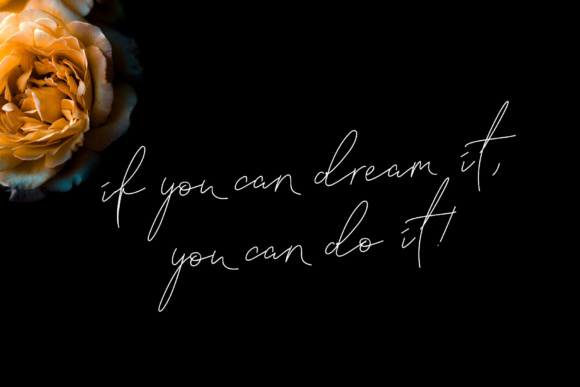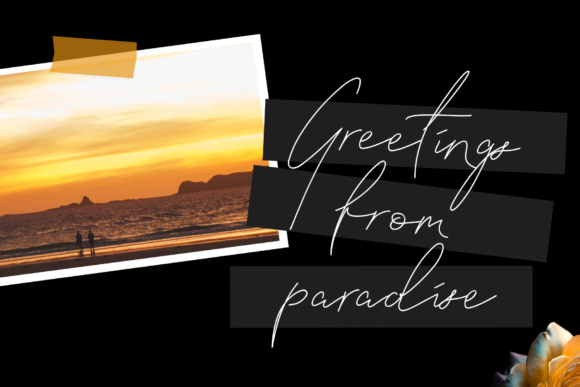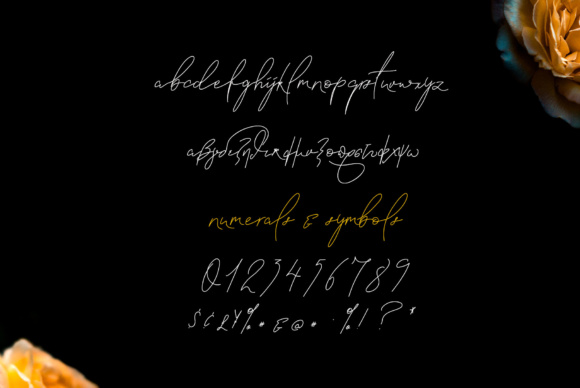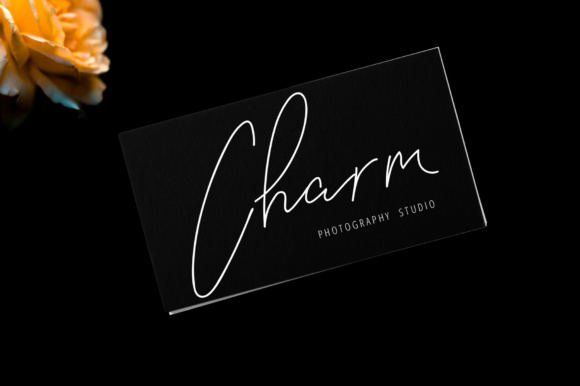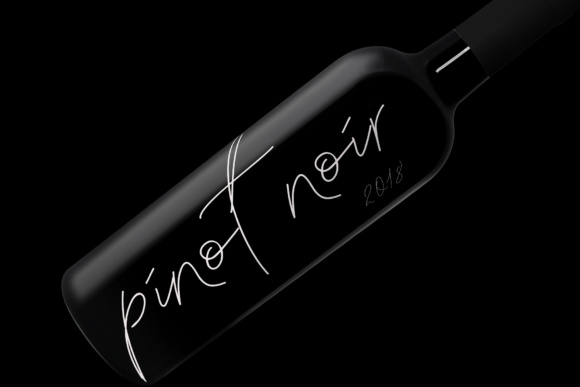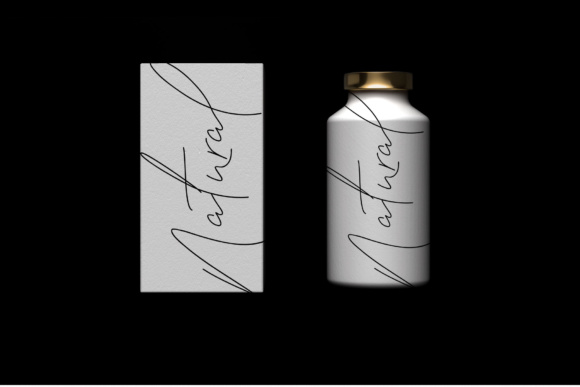
Introducing the Elegant Blanc Seing Font: Elevate Your Designs with a Personal Touch
In the realm of typography, the right font can transform a design from ordinary to extraordinary. For those seeking to infuse their creations with a personal, handwritten feel, the Blanc Seing font emerges as an exceptional choice. This decorative signature font is not only a stylish addition to any design project but also a versatile tool that caters to the modern designing needs of creatives and professionals alike.
The Essence of Blanc Seing Font
The Blanc Seing font is characterized by its elegant, cursive script that exudes a sense of sophistication and charm. Its unique, flowing letters are meticulously crafted to mimic the fluidity of handwriting, making it an ideal selection for designers aiming to add a personal touch to their work. Whether you’re working on branding materials, invitations, packaging, or digital content, this font ensures that your designs stand out with a distinctive, bespoke feel.
Key Features of Blanc Seing Font
- Decorative Signature Style: The Blanc Seing font boasts a decorative signature style that lends an air of elegance and refinement to any design.
- Handwritten Feel: Its carefully designed letters capture the essence of handwriting, providing a warm, personal feel to your creations.
- Versatility: Perfect for a wide range of design applications, from digital projects to print materials.
- Modern Design Needs: Tailored to meet the demands of contemporary design, ensuring your work looks current and stylish.
Applications of Blanc Seing Font
The versatility of the Blanc Seing font makes it suitable for various design projects. Here are some of the areas where this font truly shines:
- Branding and Logos: Use the Blanc Seing font to create unique, memorable brand identities that reflect a sophisticated and approachable image.
- Stationery and Invitations: Add a touch of elegance to your stationery, wedding invitations, or event announcements with this beautiful script font.
- Packaging Design: Stand out on store shelves with eye-catching packaging that features the distinctive, cursive style of the Blanc Seing font.
- Digital Content: Enhance your website, blog, or social media graphics with a font that offers a fresh, modern look.
Tips for Using Blanc Seing Font Effectively
To maximize the impact of the Blanc Seing font in your designs, consider the following tips:
- Pair with Complementary Fonts: Combine the Blanc Seing font with simpler, sans-serif fonts for contrast and visual interest.
- Adjust Size and Color: Experiment with different sizes and colors to ensure the font complements your design without overpowering it.
- Use for Headlines and Titles: The Blanc Seing font is particularly effective for headlines and titles, where its decorative style can shine.
The Blanc Seing font is a valuable addition to any designer’s toolkit, offering a perfect blend of elegance, versatility, and personality. Its decorative signature style and handwritten feel make it an excellent choice for a wide range of design applications. By incorporating the Blanc Seing font into your projects, you can achieve a distinctive look that captures the essence of modern design while standing out in a crowded creative landscape.
Whether you’re a professional designer or a crafting enthusiast, the Blanc Seing font invites you to explore new creative possibilities and elevate your designs with a personal touch. Discover the difference this exceptional font can make and bring your creative visions to life with elegance and style.